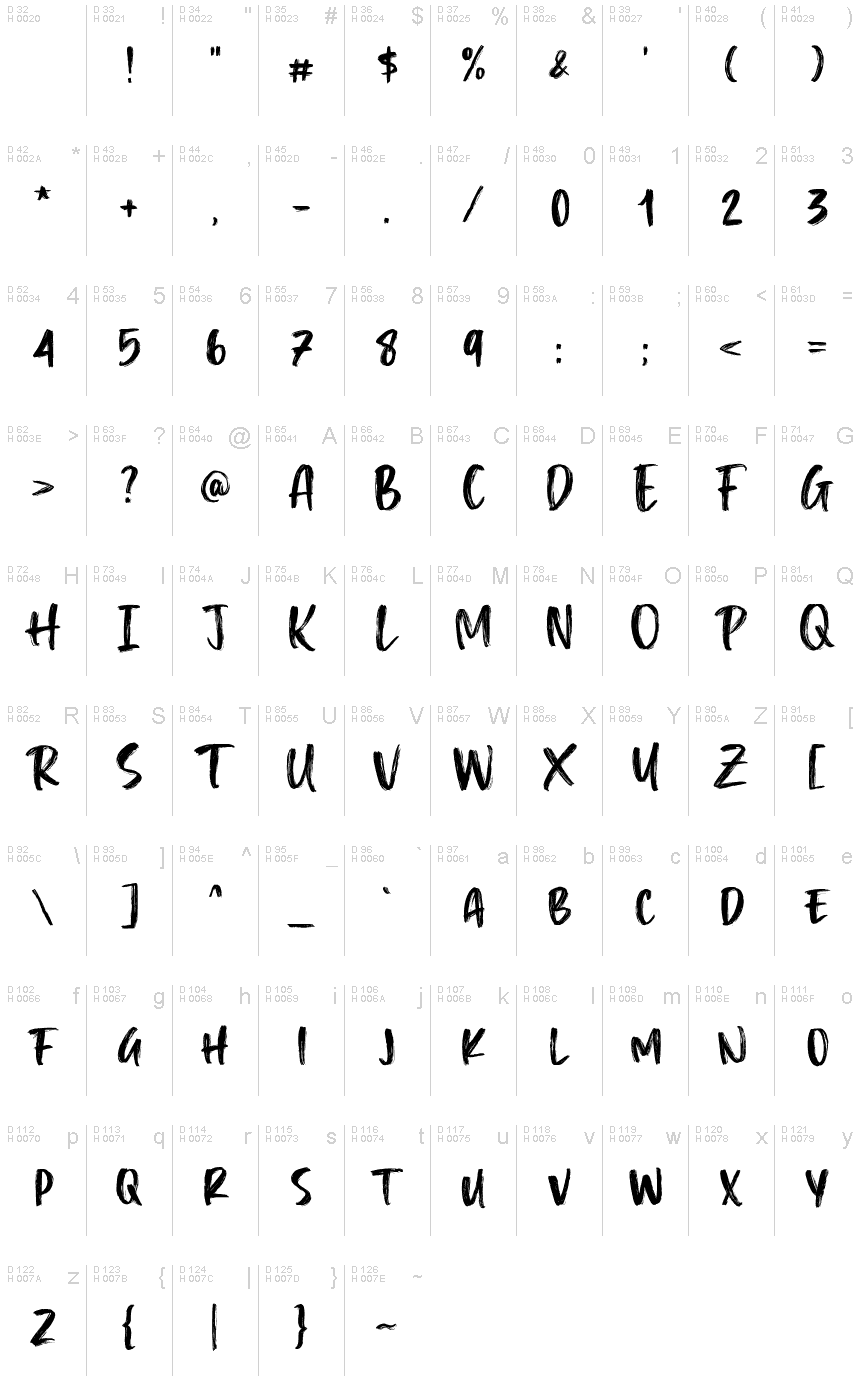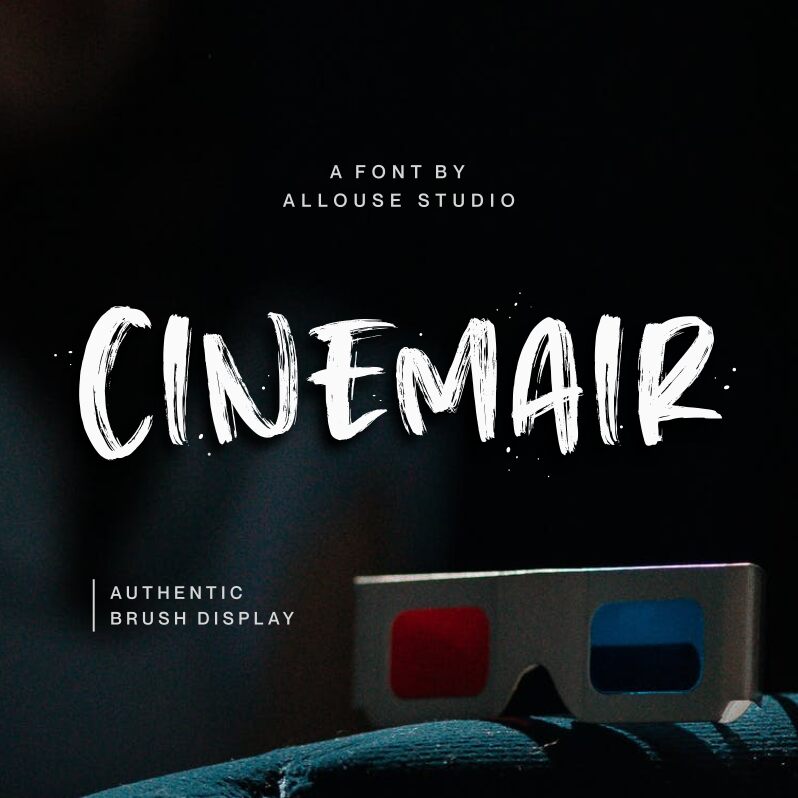
Cinemair
Cinemair is a bold brush font designed by Allouse.Studio. It's perfect for creating eye-catching headlines and logos, making it ideal for posters, flyers, and other creative projects. With its strong, dynamic strokes, Cinemair will ensure your designs stand out from the crowd.